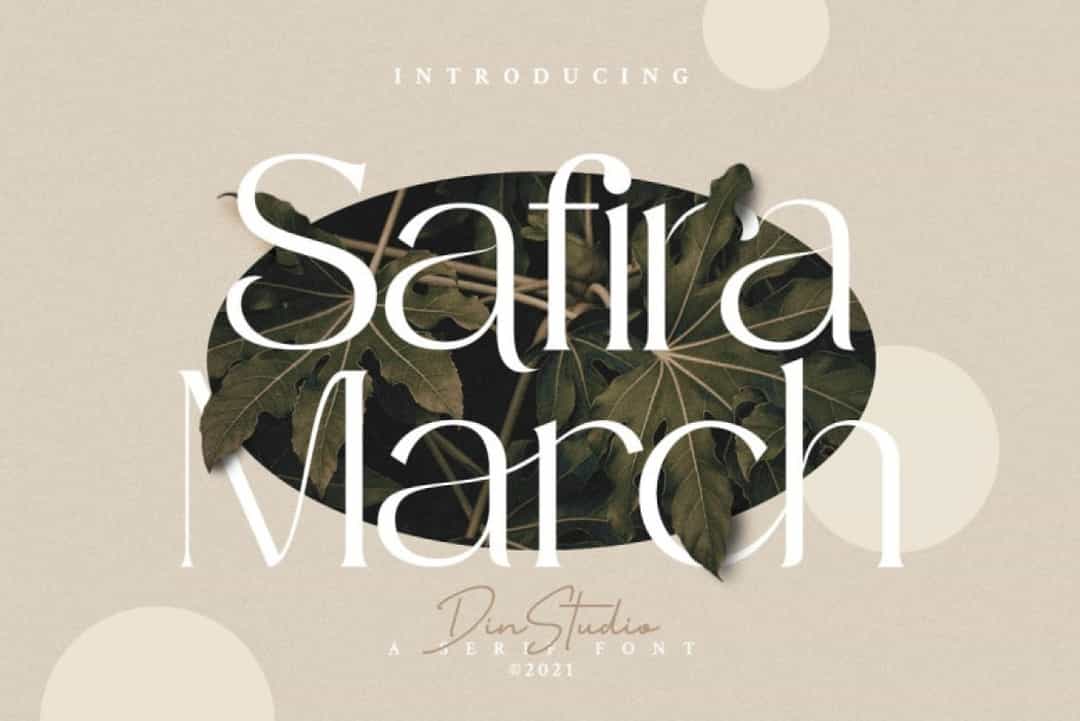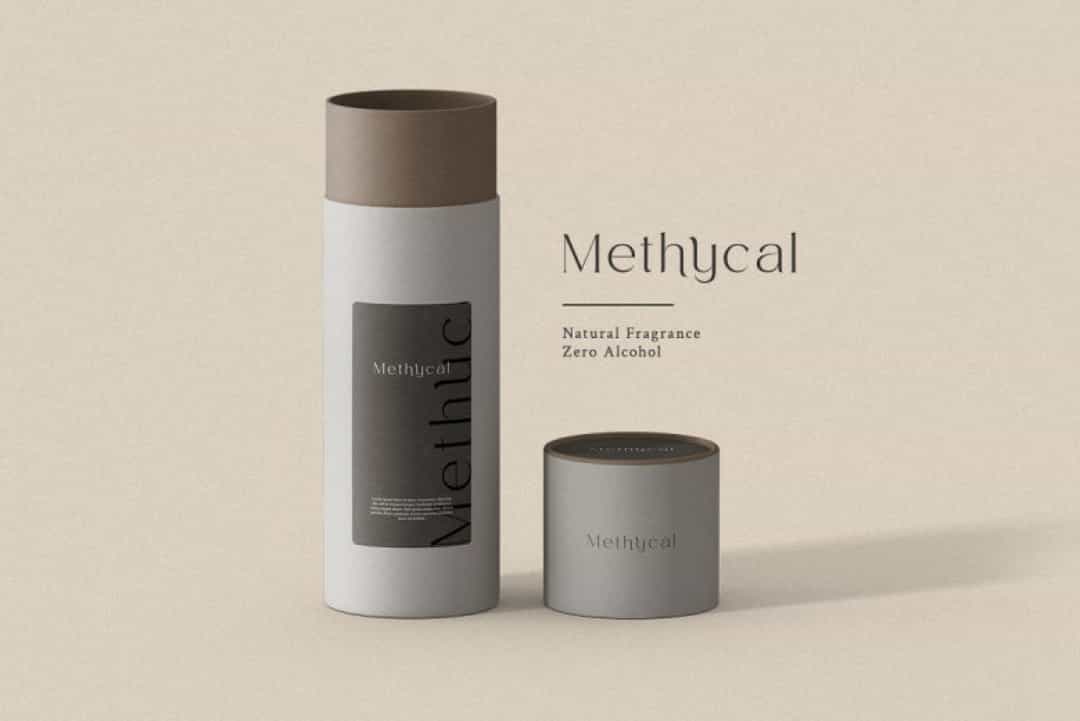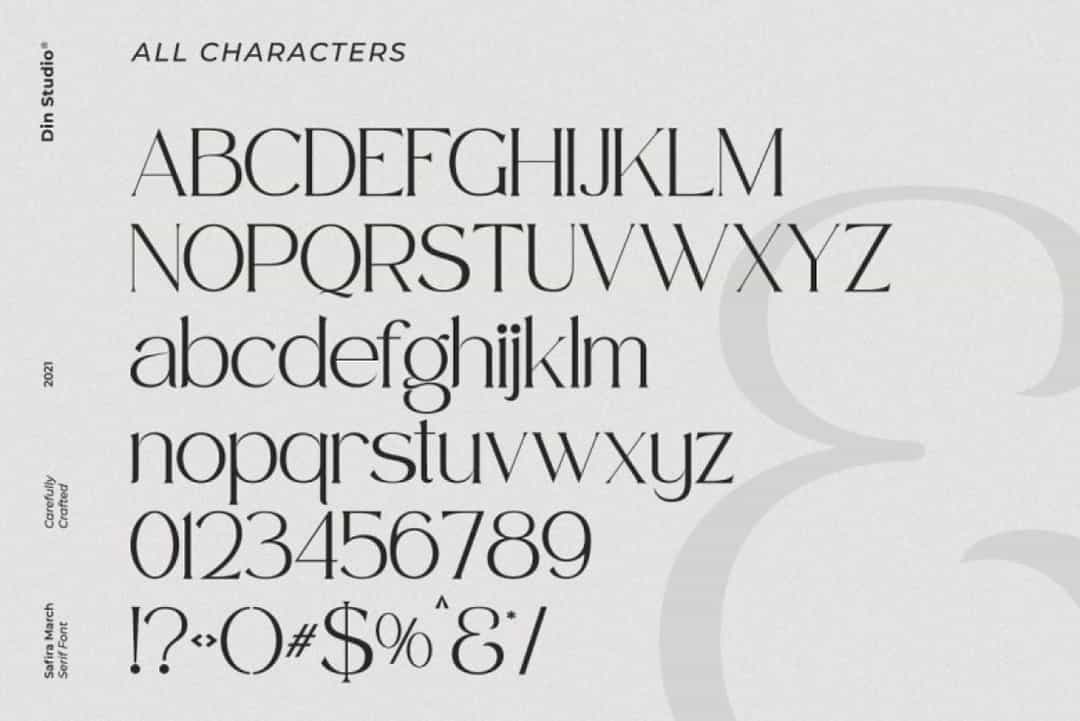
Discover Safira March Font, part of the Serif collection—a versatile and unique font perfect for adding a personal touch to your projects. Download it for free and enjoy crafting designs with style, from invitations to social media posts. This font is available exclusively for personal use, giving you the freedom to create without limits. Unlock your creativity with Safira March Font today!
Safira March Font is sure to draw in viewers and make your advertising campaigns or projects shine! Give your brand more presence while adding modernity with Safira March.